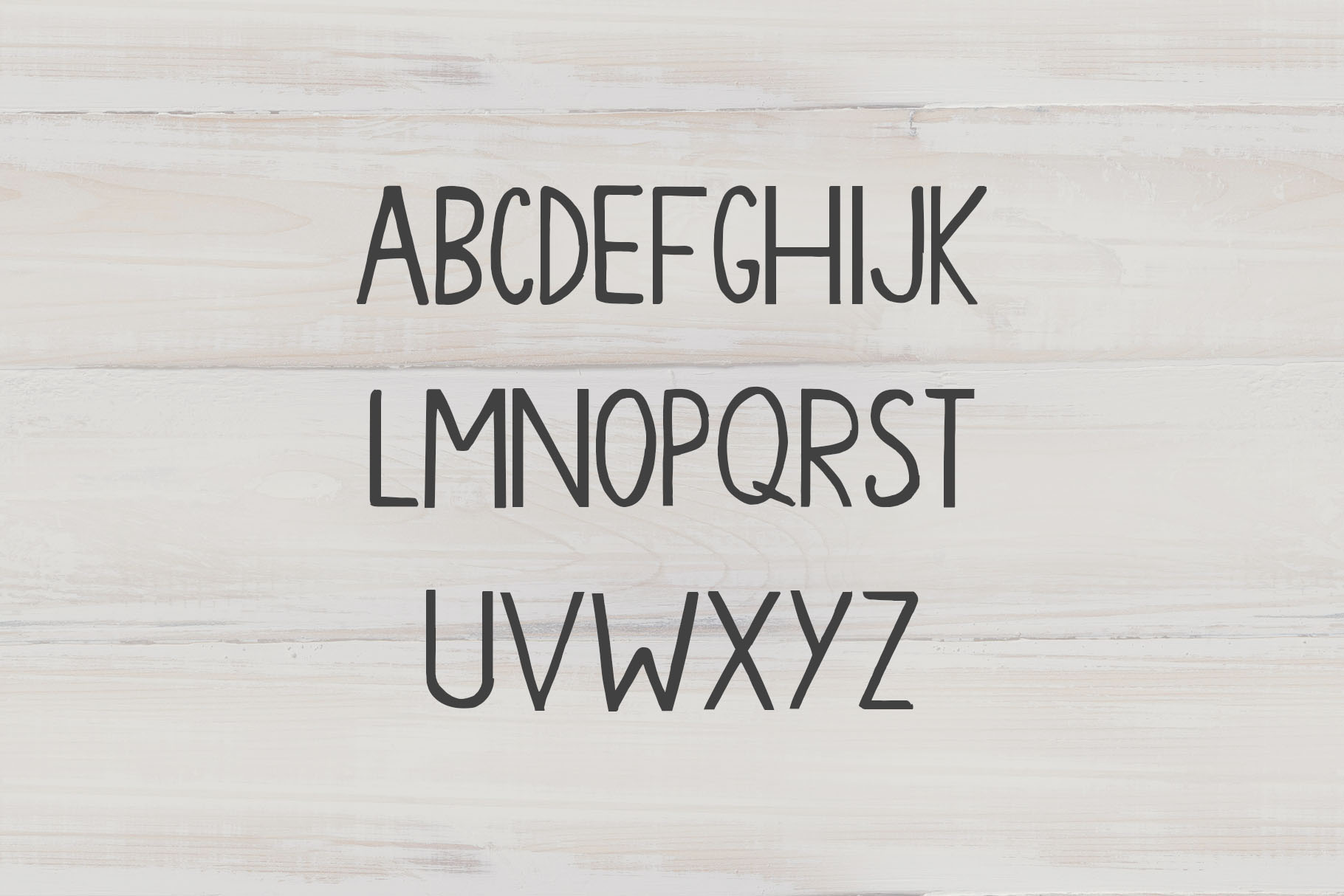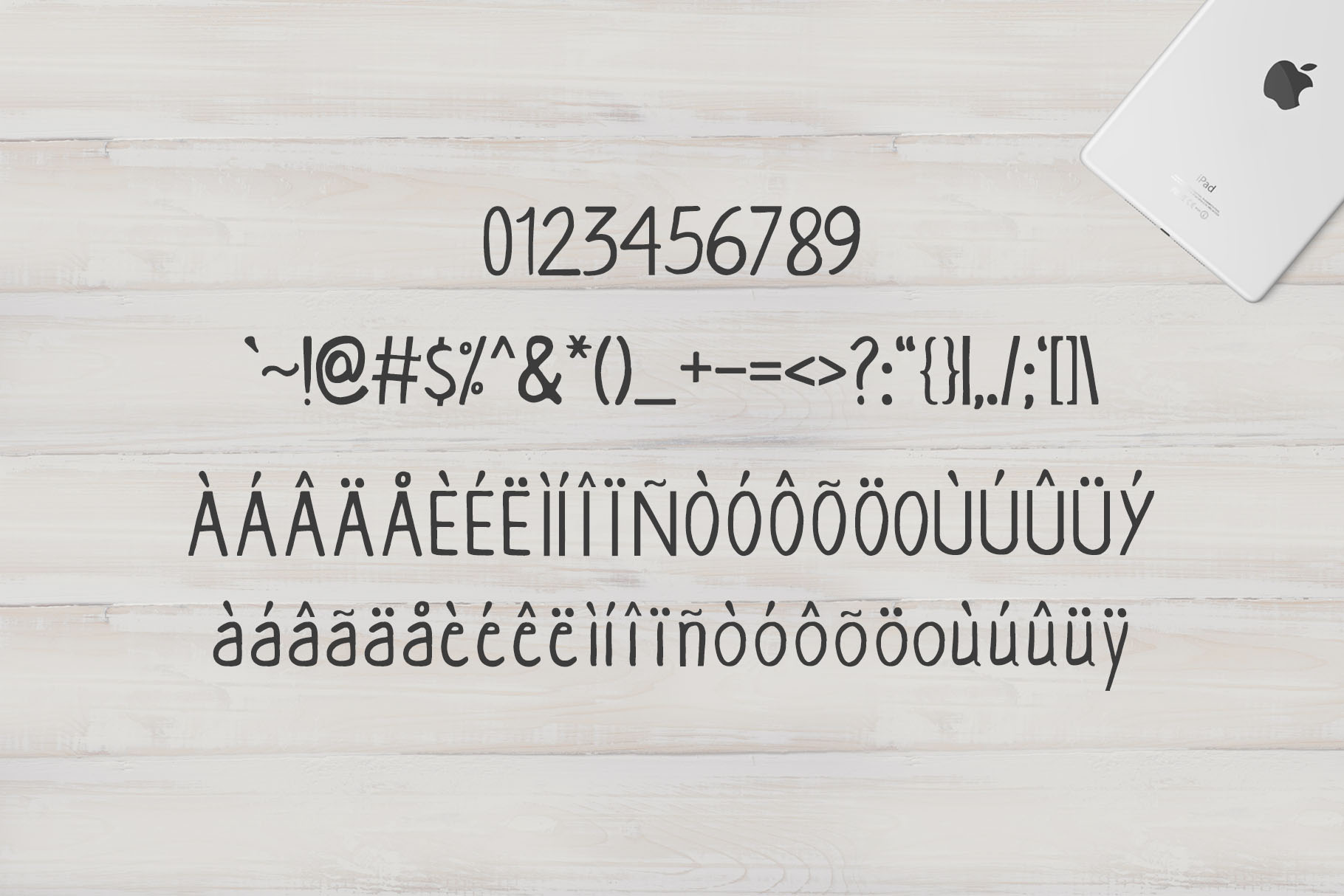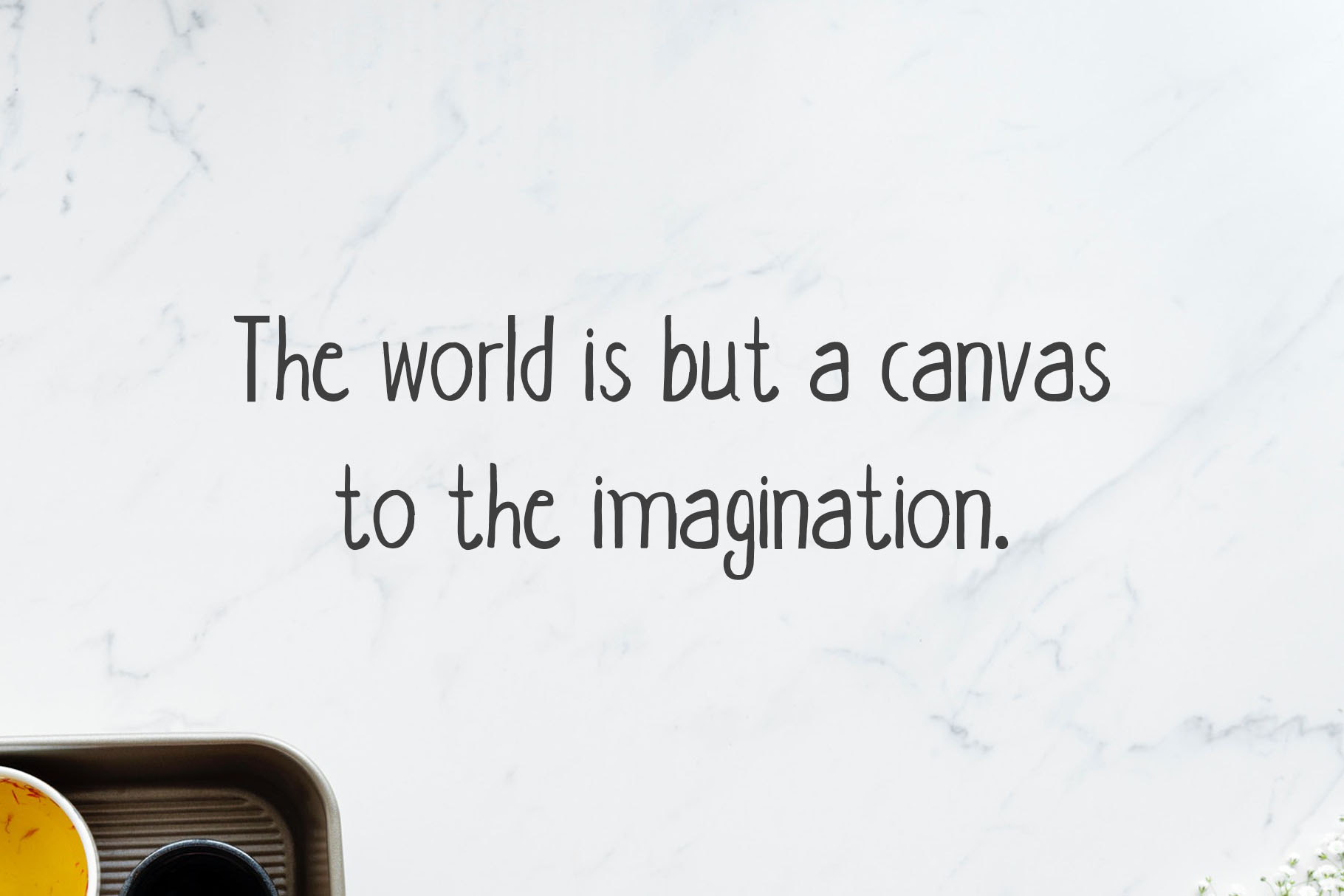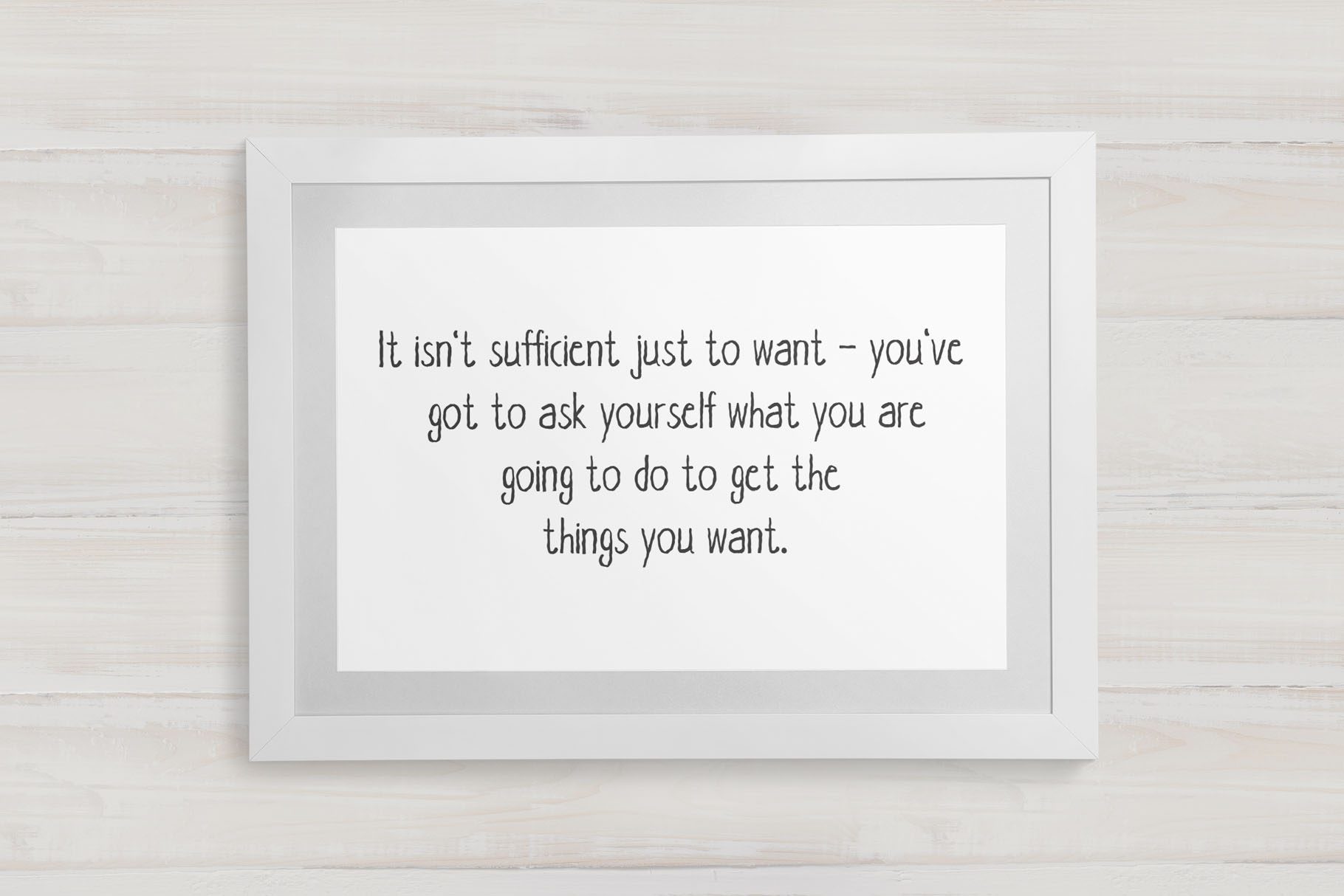
Aarianna Font
About Aarianna Font
Aarianna is a unique, bold handwritten brush font. This font is a handcrafted sans serif script, perfect for giving your designs a light-hearted charm and innocence of style.